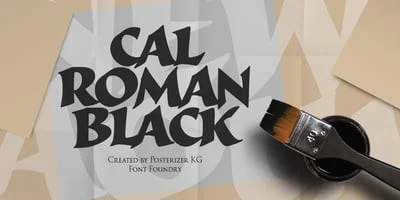
Cal Roman Black Font
The Cal Roman Black Font is a powerfully bold and commanding serif typeface, characterized by its robust letterforms, strong serifs, and a distinctive, authoritative presence. Imagine its impactful characters dominating headlines in newspapers and magazines, adding a decisive edge to corporate branding, or creating striking titles for legal documents and formal publications. Its sturdy construction and classic Roman proportions ensure exceptional legibility even at large sizes, making it an excellent choice for dynamic event signage, prestigious certificates, and any design where a clear, forceful, and unforgettable statement is paramount. Whether you're aiming for a strong, traditional look or a contemporary design with an undeniable impact, Cal Roman Black Font delivers with its unwavering character, ensuring your visuals demand attention and leave a lasting impression.
What makes Cal Roman Black Font so exciting is its inherent ability to project strength and gravitas. In a visual landscape where capturing immediate attention is crucial, this font stands out with its powerful visual impact and remarkable readability. It's more than just a typeface; it's a design accelerant that can instantly convey confidence, precision, and an established authority. Cal Roman Black Font offers designers the opportunity to create visuals that are both visually assertive and remarkably clear, making it an invaluable asset for those looking to communicate a sense of power, importance, and timeless style in an impactful form.
The Cal Roman Black Font family is typically structured to offer a range of styles that amplify its bold and impactful appeal. While the primary Cal Roman Black Regular typeface provides that distinctive heavy look, you might find companion styles or other weights within a broader "Cal Roman" family, such as a Cal Roman Medium or Cal Roman Bold, which offer varying degrees of blackness or impact. Given its display nature and focus on strength, the core "Black" weight often stands alone as the primary stylistic statement. These diverse family members provide designers with the flexibility to establish a clear typographic hierarchy and maintain a consistent, high-impact aesthetic across all elements of their project, from dominant headlines to supporting graphic elements.
For projects demanding a bold, distinctive, and powerfully authoritative feel, consider the impactful Cal Roman Black Font. It's an excellent choice to make your designs stand out with uncompromising strength.